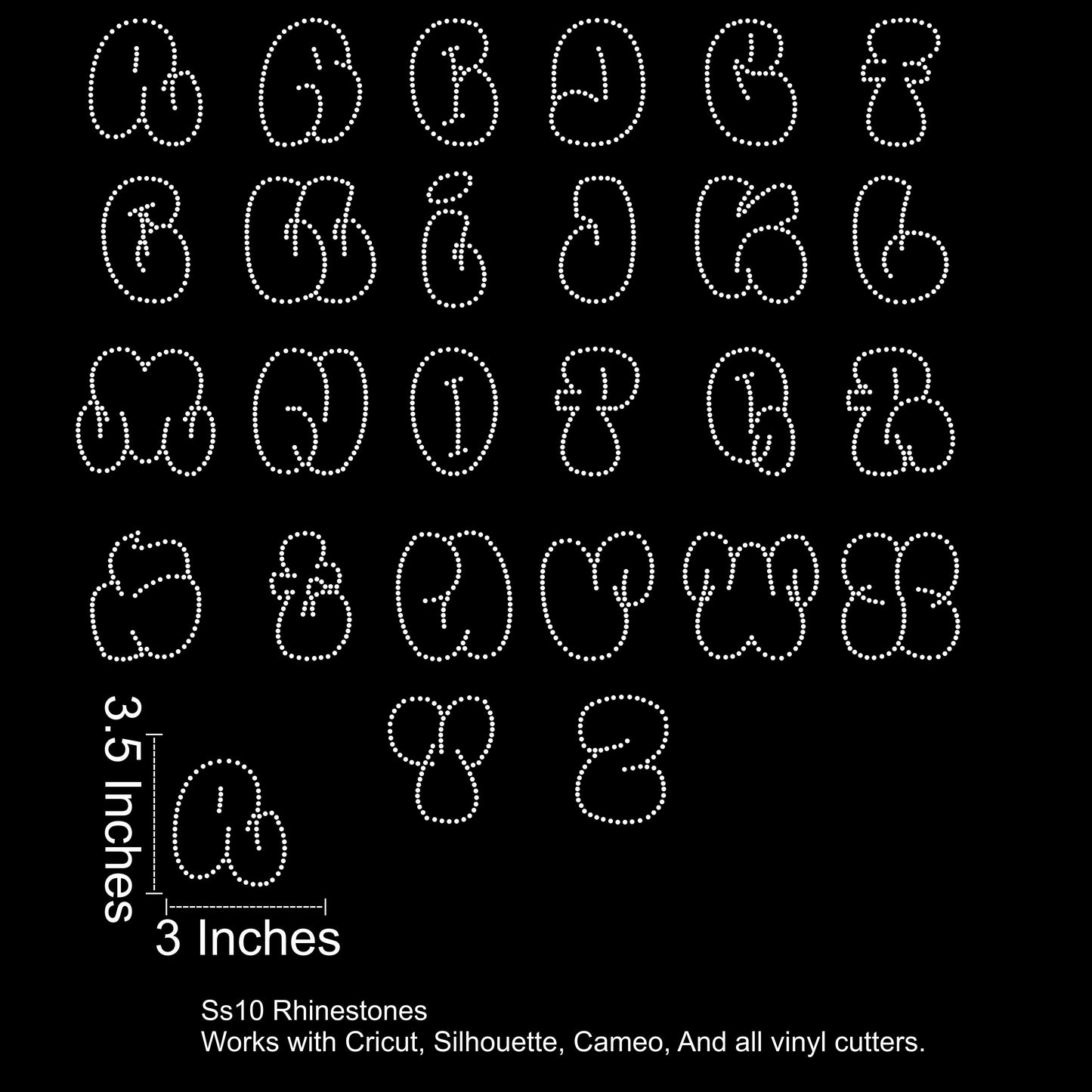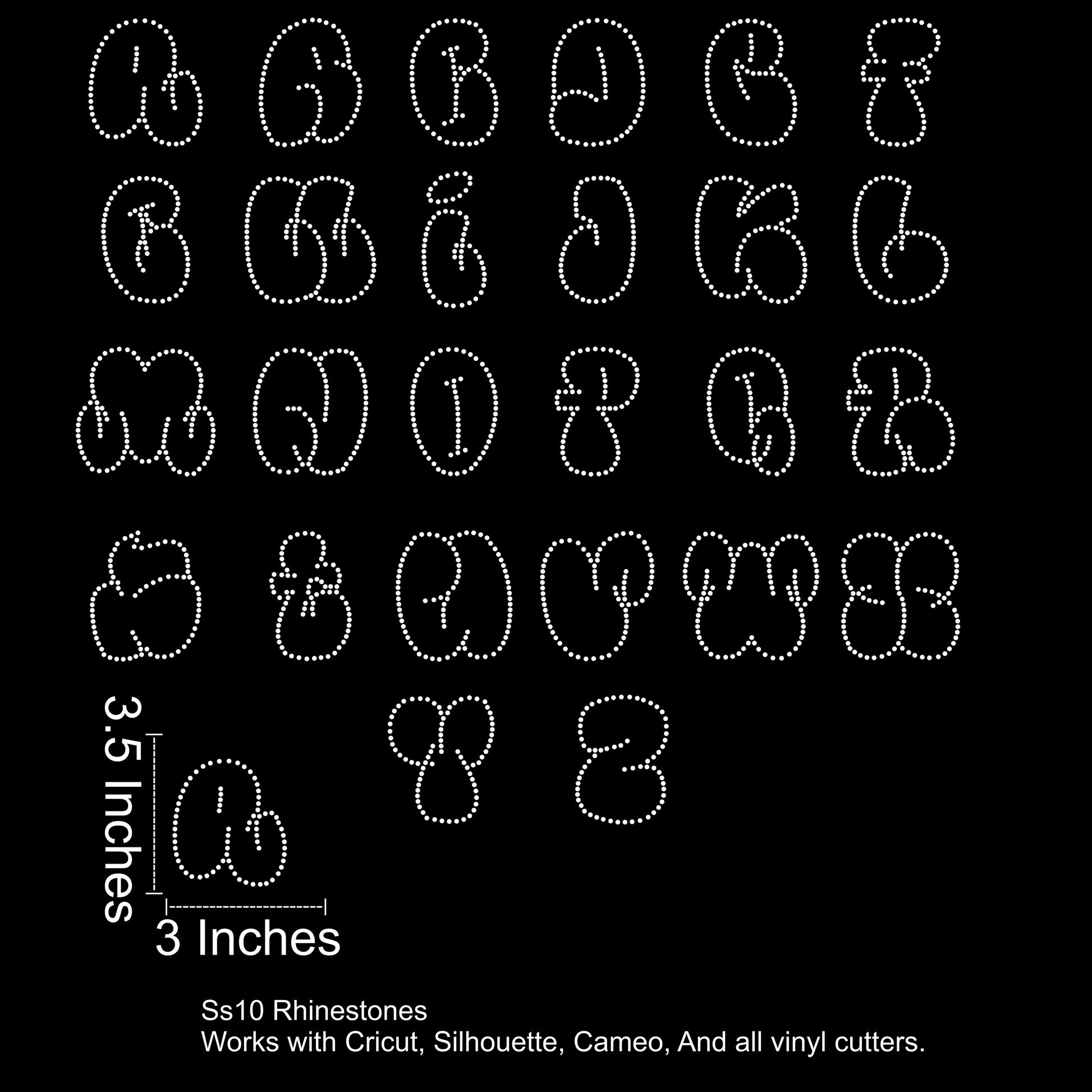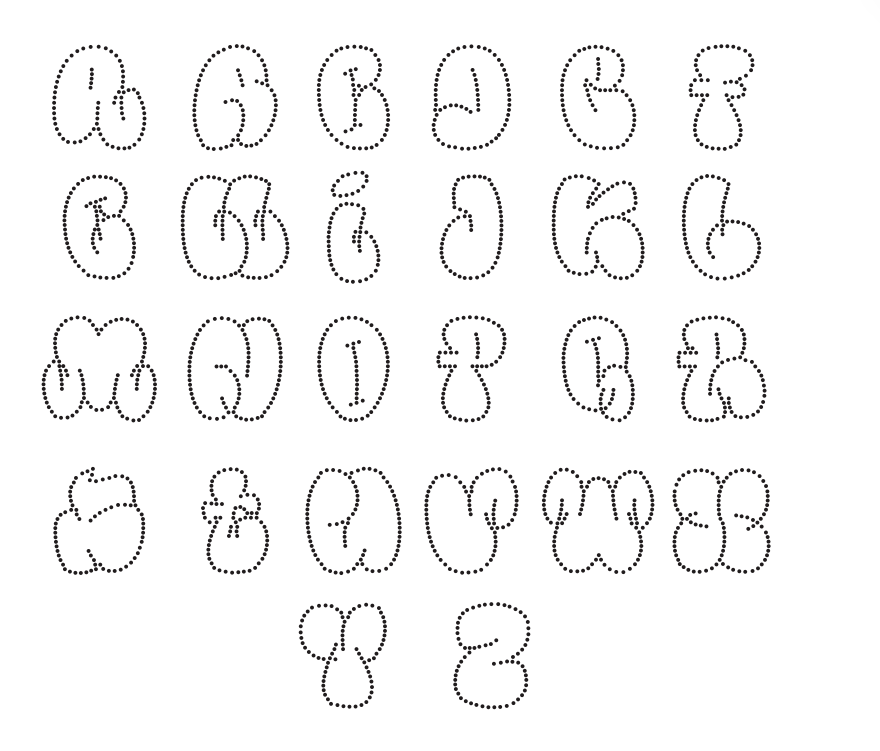
Bubble Line Rhinestone Font SVG 3.5 Inches Tall
Bubble Line – Rhinestone Font SVG (SS10 Size Compatible)
Clean, bold, and super versatile — Bubble Line is a smooth outlined font with a soft, rounded style that makes any design pop. Sized at 3.5 inches tall, this font is spaced perfectly for SS10 rhinestones and ready to cut and press straight from your cutter software.
Font Details:
• Letters A–Z
• Approx. 3.5 inches tall
• Designed for SS10 hotfix rhinestones